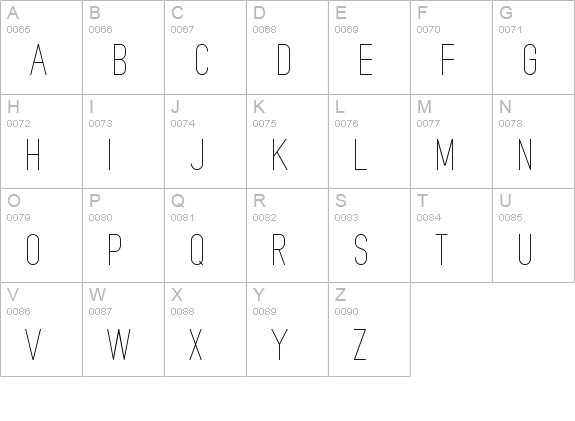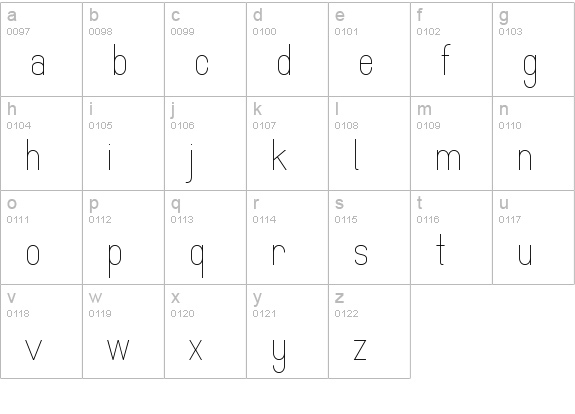
MindBlue Light is a refined, elegant variant in the MindBlue typeface family \xE2\x80\x94 well suited to elegant body text, refined sub-headings, and luxury branding.
MindBlue Light font is a visually stunning typeface that exudes elegance and sophistication. With its sleek and slender design, this font is perfect for adding a touch of modernity to any project. Its clean lines and smooth curves give it a polished and professional appearance, making it suitable for a wide range of applications. What sets MindBlue Light font apart is not only its impeccable style but also the fact that it is available for free! Yes, you read that right. This incredible font can be downloaded at absolutely no cost from FontsMarket.com. This means that you can enhance your designs without having to worry about breaking the bank. Whether you are a professional graphic designer, a student working on a project, or simply someone who appreciates beautiful typography, MindBlue Light font is a must-have in your collection. Its versatility allows it to shine in various contexts, such as logo designs, branding materials, website headers, book covers, and more. The clarity and legibility of MindBlue Light font make it an excellent choice for both digital and print media. Its clean and modern aesthetic ensures that your message will be conveyed with utmost clarity and impact. The thin strokes and generous spacing of this font create an airy and open feel, making it easy on the eyes and a pleasure to read. Downloading MindBlue Light font is a breeze. Simply visit FontsMarket.com, locate the font, and click the download button. In just a few seconds, you will have this stunning typeface at your fingertips, ready to elevate your design projects to new heights. Don't miss out on the opportunity to enhance your creations with MindBlue Light font. Download it for free at FontsMarket.com today and let its elegance and sophistication breathe life into your designs.